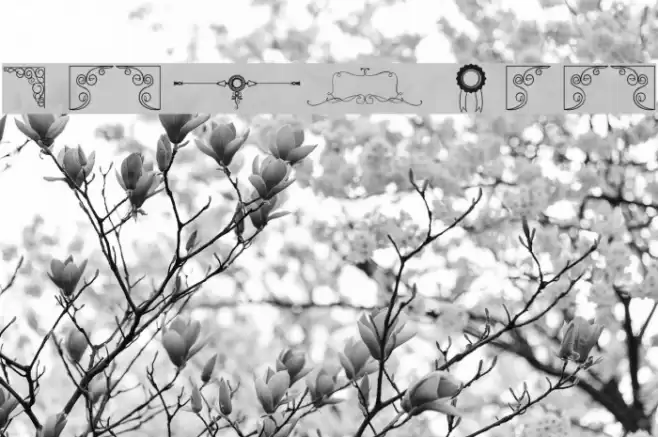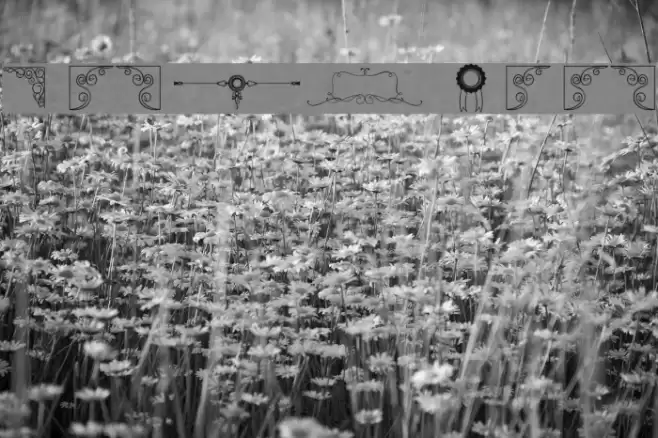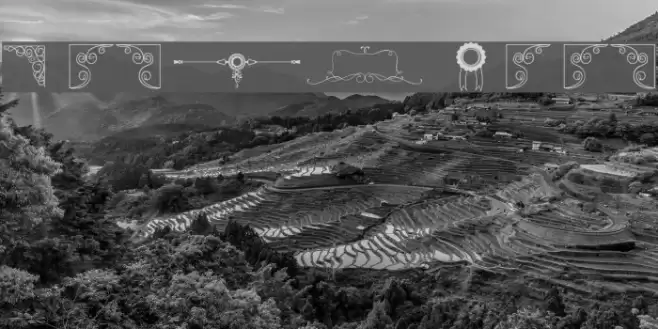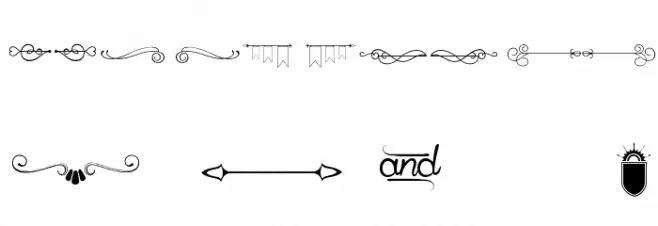
Honey Moon Font
Honey Moon Description
A decorative collection of ornate flourishes, banners, borders, and embellishments, featuring intricate linework and vintage-inspired motifs. Includes a script 'and', arrows, and various ornamental dividers suitable for elegant design accents.
Ornamental and decorative vector-style embellishments with vintage flair from Uncategorized fonts.
- Proposed Projects: Wedding invitations, certificates, greeting cards, vintage posters, scrapbooking, branding for boutique businesses.
- Overall Style: Decorative, Vintage
- Use Case: Borders, dividers, accents, and decorative elements in print or digital design.